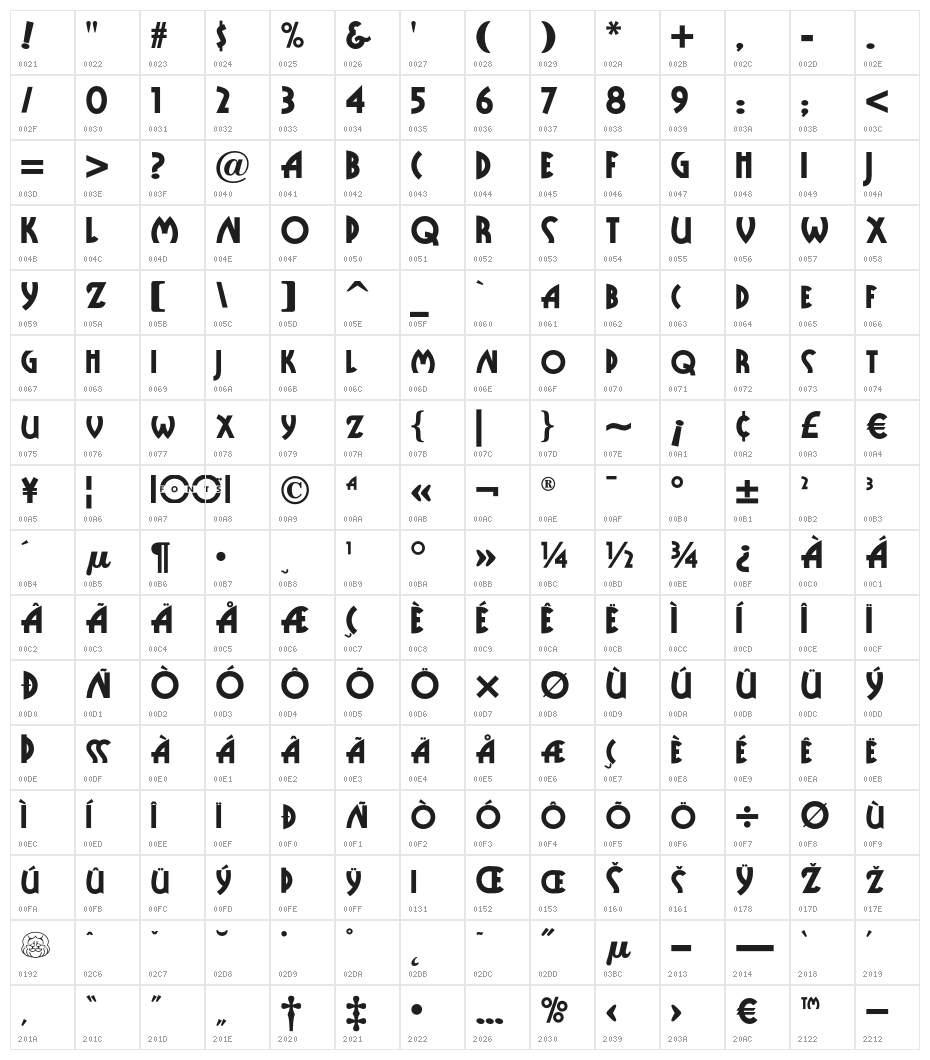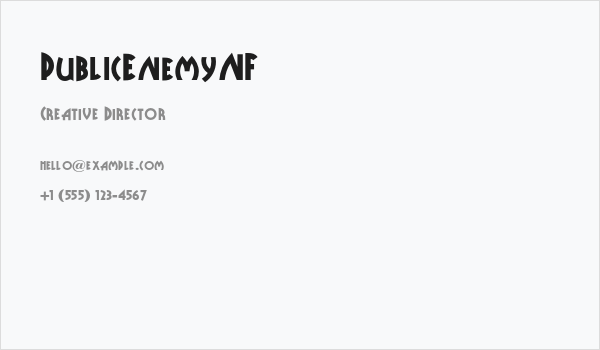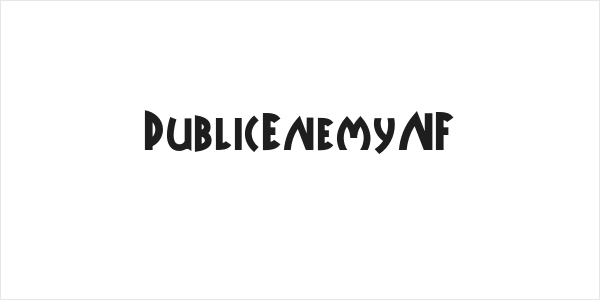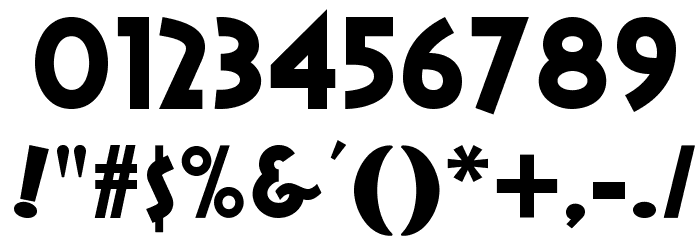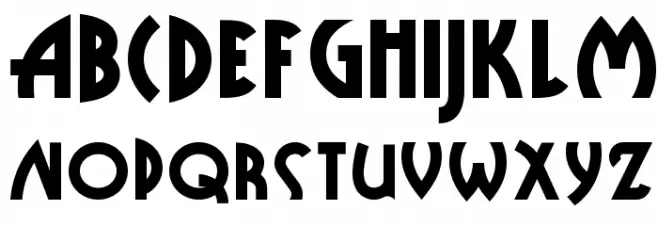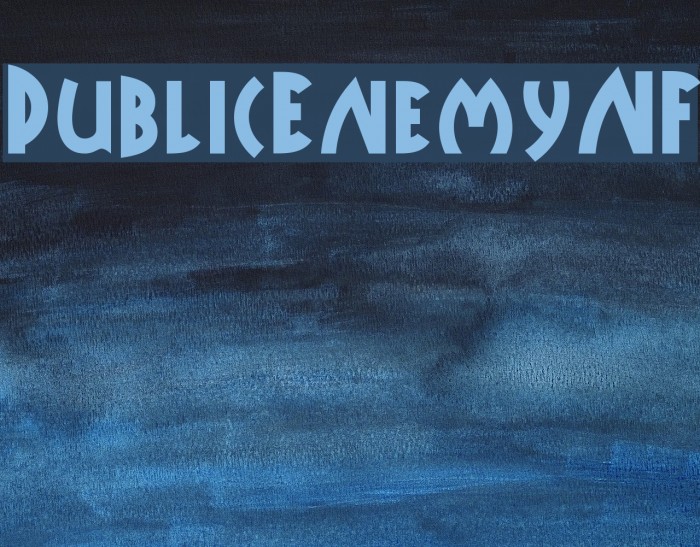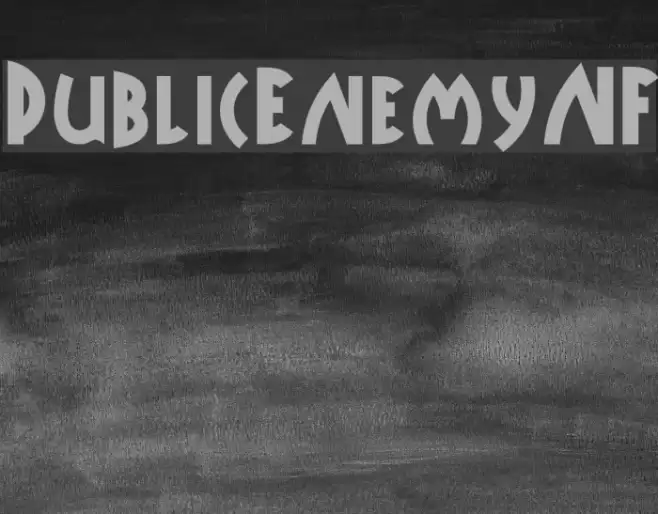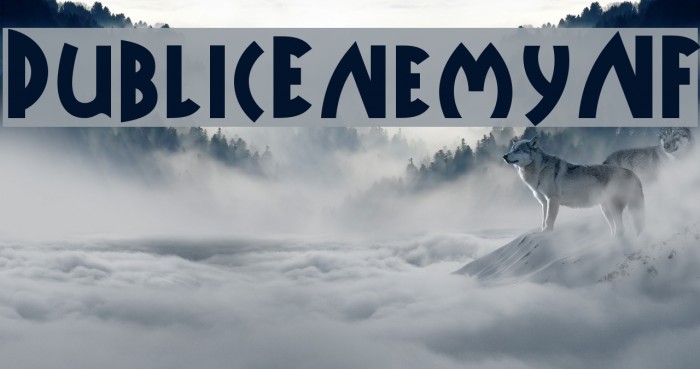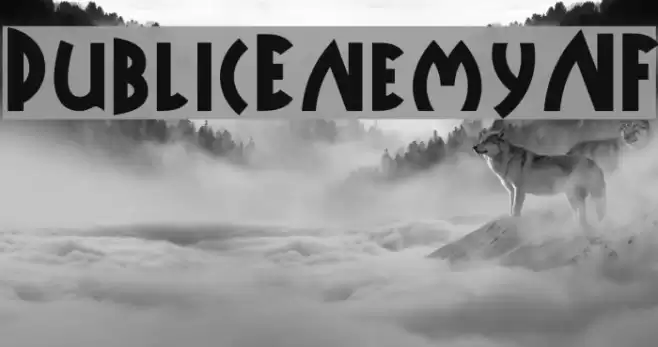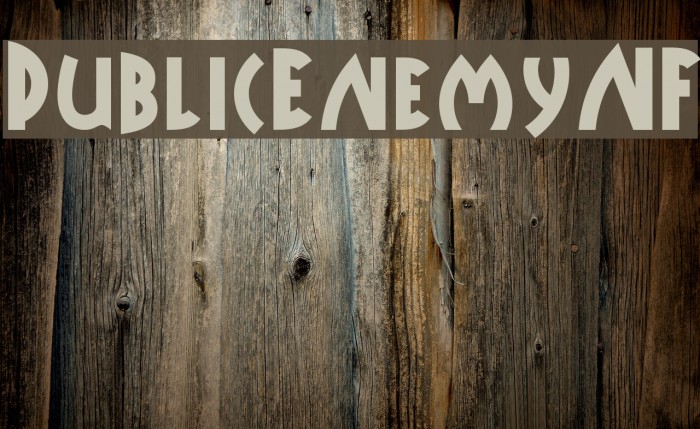
PublicEnemyNF Font
PublicEnemyNF Description
This font features a bold and striking design with a strong geometric influence. The characters are crafted with sharp angles and a consistent stroke width, giving it a powerful and assertive appearance. The uppercase letters are particularly distinctive, with unique cuts and curves that add to its dynamic style. The numbers and special characters maintain the same boldness, ensuring a cohesive look across all elements. This font's design is reminiscent of early 20th-century styles, yet it retains a modern edge that makes it versatile for contemporary use.